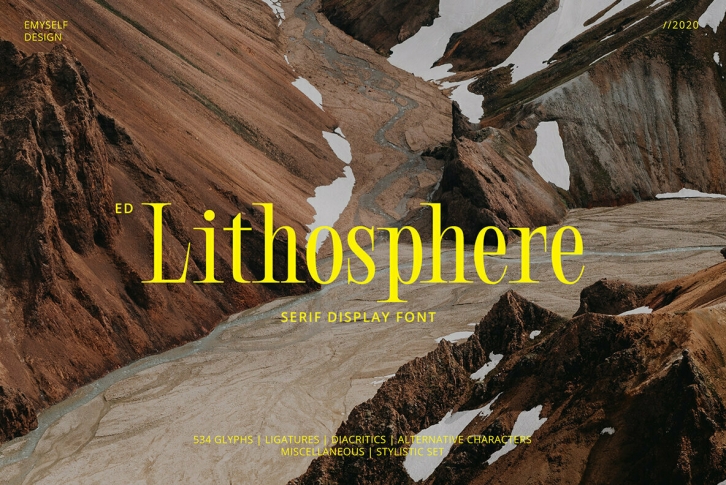
ED Lithosphere is a sharp display serif font that looks elegant and modern. This font has a Stylish character set to add functionality and beauty to typography, besides that this font also has several features such as: Uppercase, Lowercase, Alternative character / Stylish set, Ligature, Diacritic (multilingual), punctuation, and symbols.
This font is inspired by several typographic designs on social media, which are then created and designed to create a good character font that is easy to use for various graphic design needs. These fonts are perfect for cover designs, posters, UI, branding, fashion, logo, social media templates, packaging, etc.